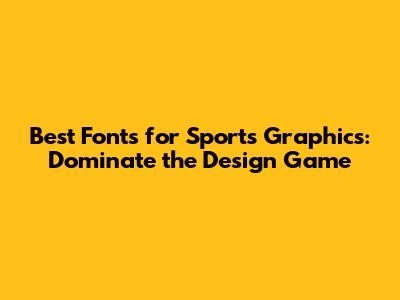
Best Fonts For Sports Graphics: Dominate The Design Game
Choosing the right font for sports graphics is crucial. The perfect font can amplify the energy, excitement, and spirit of the game, connecting with fans and athletes alike. Let's dive into the world of sports-centric typography and discover some fonts that can truly make your designs stand out.
Why Font Choice Matters in Sports Graphics
Guys, let's face it: in sports, everything is about making an impact. From the roar of the crowd to the dynamic plays on the field, the visual elements need to pack a punch, too. Your font is a key player in this arena. A killer font can transform a simple design into a captivating visual experience, grabbing attention and setting the mood.
Consider the emotional connection: the right font evokes feelings. A bold, strong font can communicate power and dominance, perfect for a football team’s branding. A sleek, modern font might suit a high-tech sporting event. It's about finding that sweet spot where the font aligns with the sport's vibe and the message you want to send. Think of it like choosing the right athlete for the right position; each font has its strengths and knowing how to leverage them can make all the difference.
Moreover, legibility cannot be overlooked. While a fancy, decorative font might look cool, it's useless if no one can read it. Especially in fast-paced environments like sports broadcasts or stadium displays, clarity is paramount. The font needs to be easily readable at various sizes and distances, ensuring that fans don't miss crucial information. This is especially important for statistics, player names, and time-sensitive messages.
Lastly, the font needs to be versatile. Sports graphics appear in various formats – from social media posts and merchandise to large-scale banners and websites. A font that works beautifully on a small jersey might look cluttered on a billboard. Therefore, selecting a font family that offers different weights, styles, and variations is a smart move. This allows you to maintain consistency across all platforms while adapting to the specific needs of each design. Bottom line? Your font choice is a game-changer in sports graphics – make it count!
Top Font Categories for Sports Graphics
When you're on the hunt for perfect sports fonts, knowing your categories is half the battle. We've got a breakdown to keep you in the game:
Bold & Strong Sans-Serifs
Sans-serif fonts are your go-to for a clean, modern, and powerful look. These fonts ditch the little decorative strokes (the serifs) that you see in fonts like Times New Roman, giving them a more streamlined and contemporary feel. In the world of sports, where energy and dynamism are key, bold sans-serifs scream athleticism and strength. Think impactful headlines, player names that pop, and designs that demand attention.
Why do they work so well? It’s all about readability and versatility. Sans-serif fonts are incredibly easy to read at various sizes and distances, making them perfect for everything from stadium banners to social media graphics. Their clean lines ensure that the message gets across without any unnecessary frills. Plus, they pair well with other design elements, allowing you to create visually appealing compositions that are both functional and stylish.
Some standout examples include Bebas Neue, known for its tall, condensed letters that exude confidence and power. Montserrat is another excellent choice, offering a range of weights and styles that make it incredibly versatile for different applications. And let's not forget Roboto, a widely used font that strikes a perfect balance between modern aesthetics and readability. These fonts provide that solid, reliable foundation you need for sports graphics, ensuring your designs make a lasting impression.
Dynamic Slab Serifs
Slab serifs bring a touch of retro cool with their blocky, substantial serifs. These fonts are like the vintage muscle cars of the typography world: bold, sturdy, and full of character. Perfect for adding a sense of history and tradition to your sports graphics, slab serifs work wonders for team logos, vintage-inspired designs, and anything that needs a bit of old-school charm.
The secret to their appeal lies in their unique blend of strength and personality. Slab serifs have a commanding presence that grabs attention, while their distinctive serifs add a touch of authenticity and nostalgia. They're not just fonts; they're statements. Whether you're designing a logo for a baseball team or creating a poster for a retro sporting event, slab serifs can inject that extra dose of character that sets your designs apart.
Consider fonts like Rockwell, a classic slab serif with a geometric design that exudes confidence and stability. Archivo Black is another fantastic option, offering a bold and impactful look that’s perfect for headlines and titles. And let's not forget ChunkFive, a playful yet sturdy slab serif that adds a touch of fun to any design. These fonts bring a unique flavor to sports graphics, combining vintage aesthetics with modern appeal.
Choosing the right fonts for sports graphics is a game-changer. From bold sans-serifs to dynamic slab serifs, the options are endless. By understanding the different font categories and how they can be used to convey different emotions and messages, you can create designs that are both visually appealing and effective. So go out there, experiment with different fonts, and create some kick-ass sports graphics!